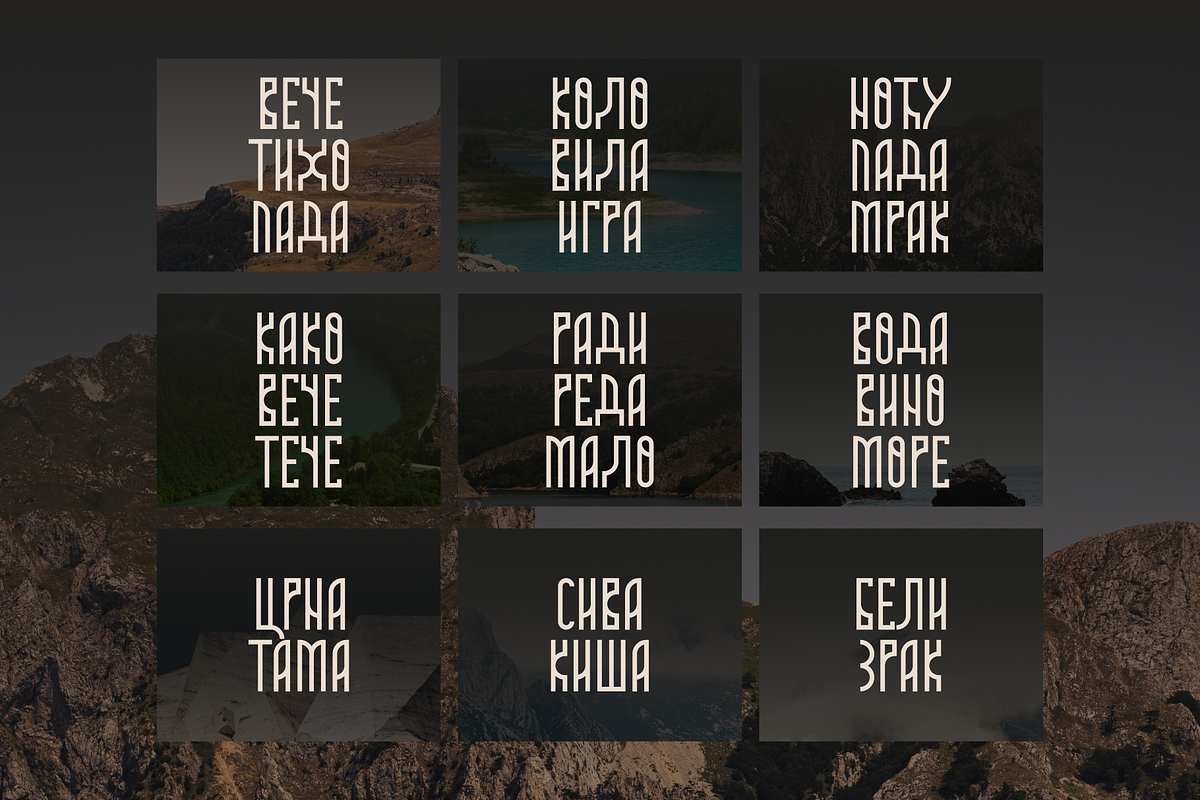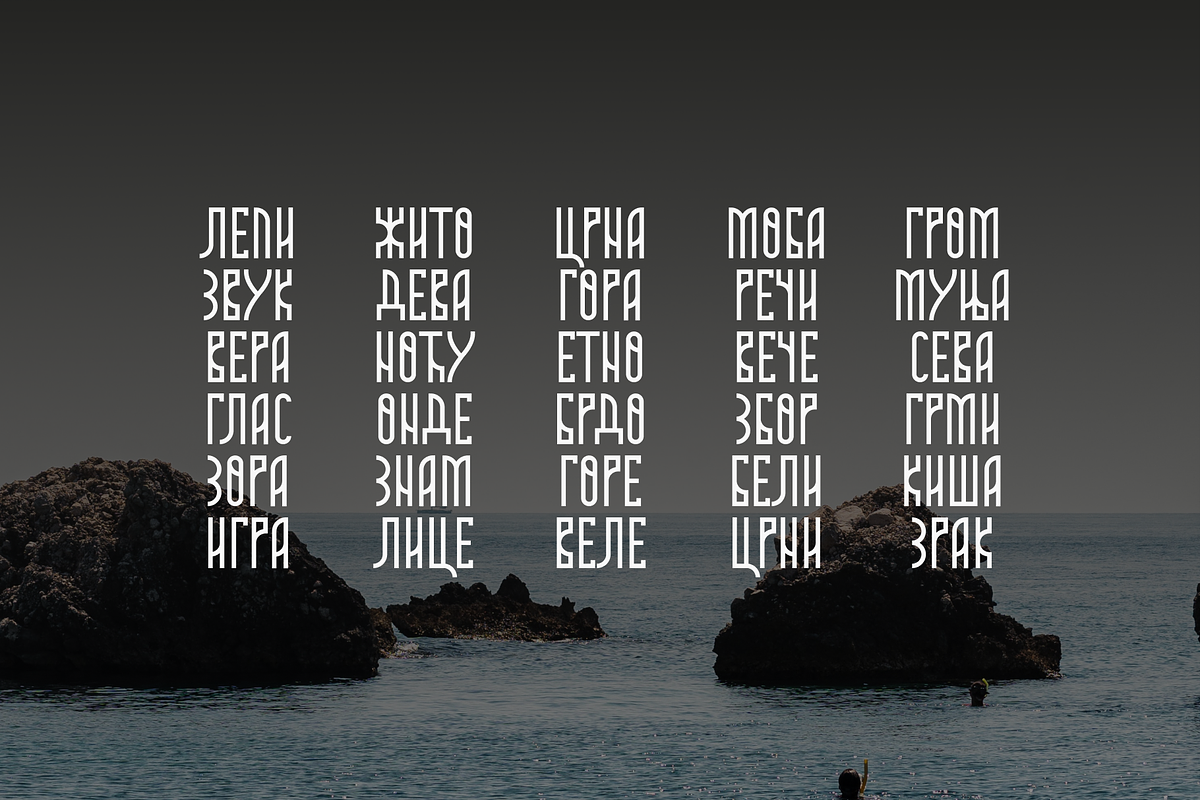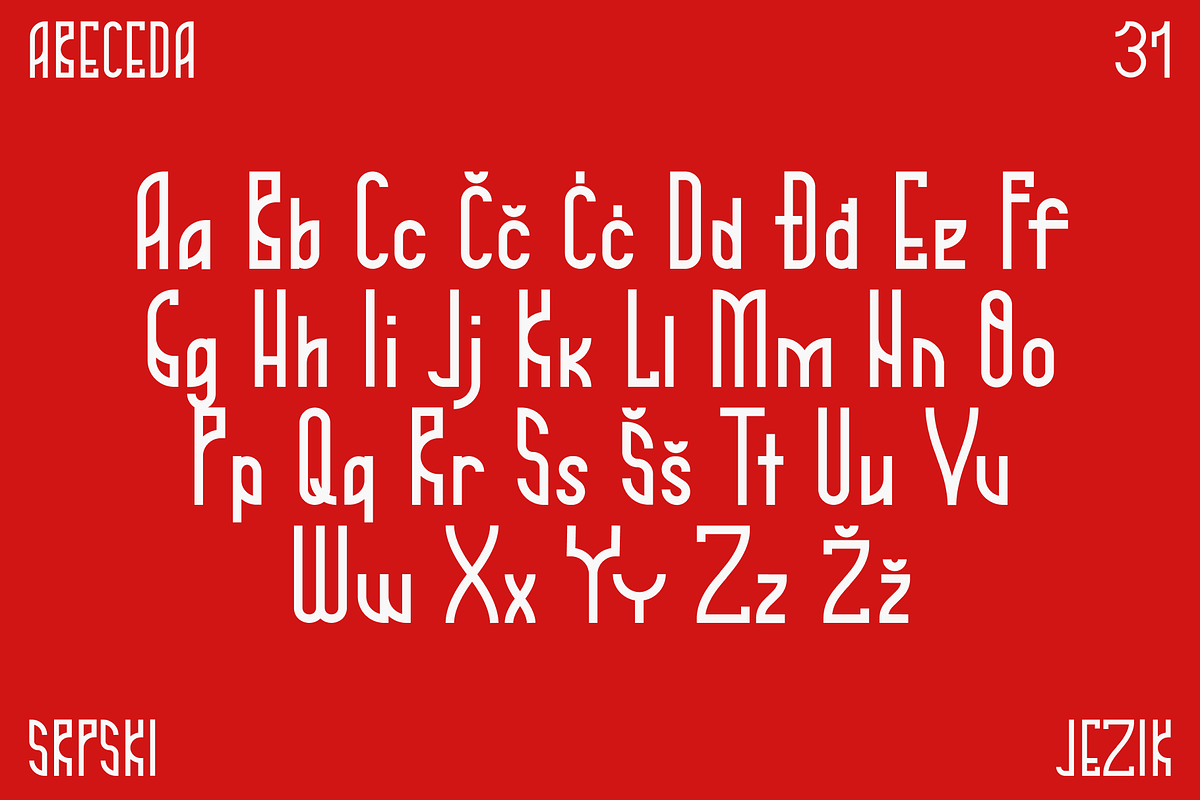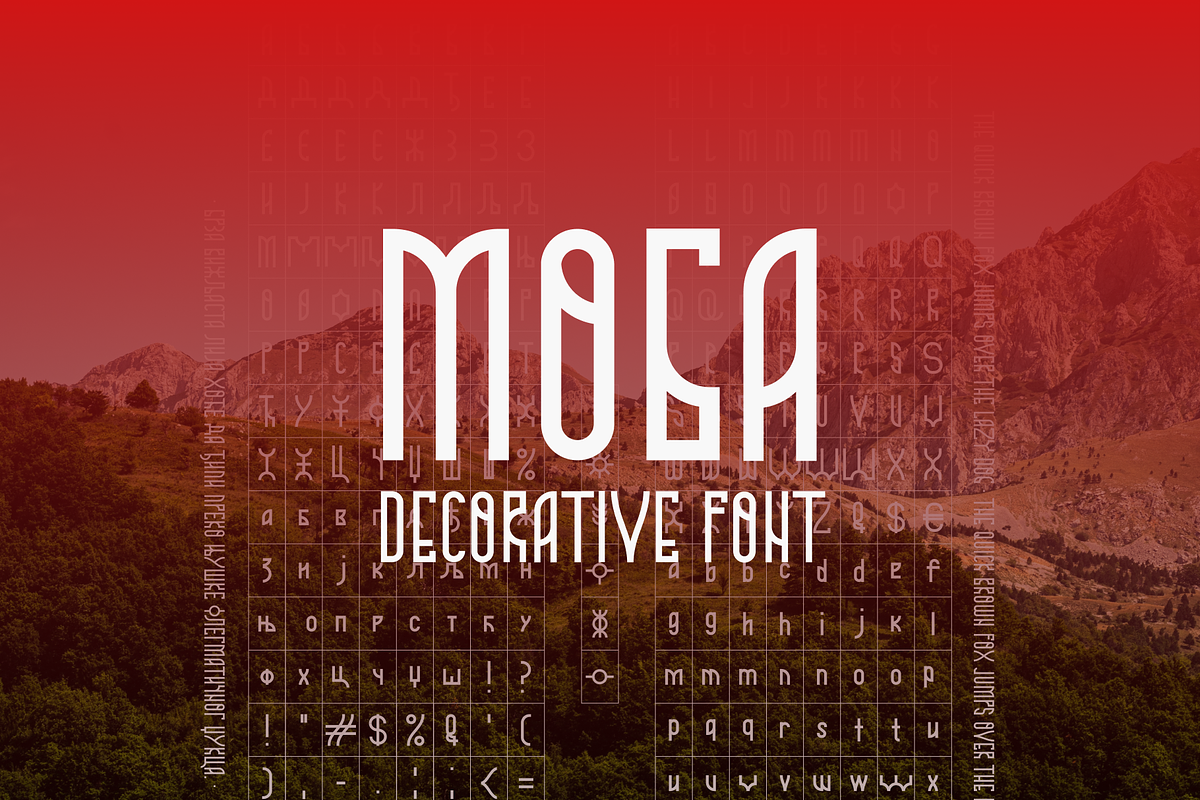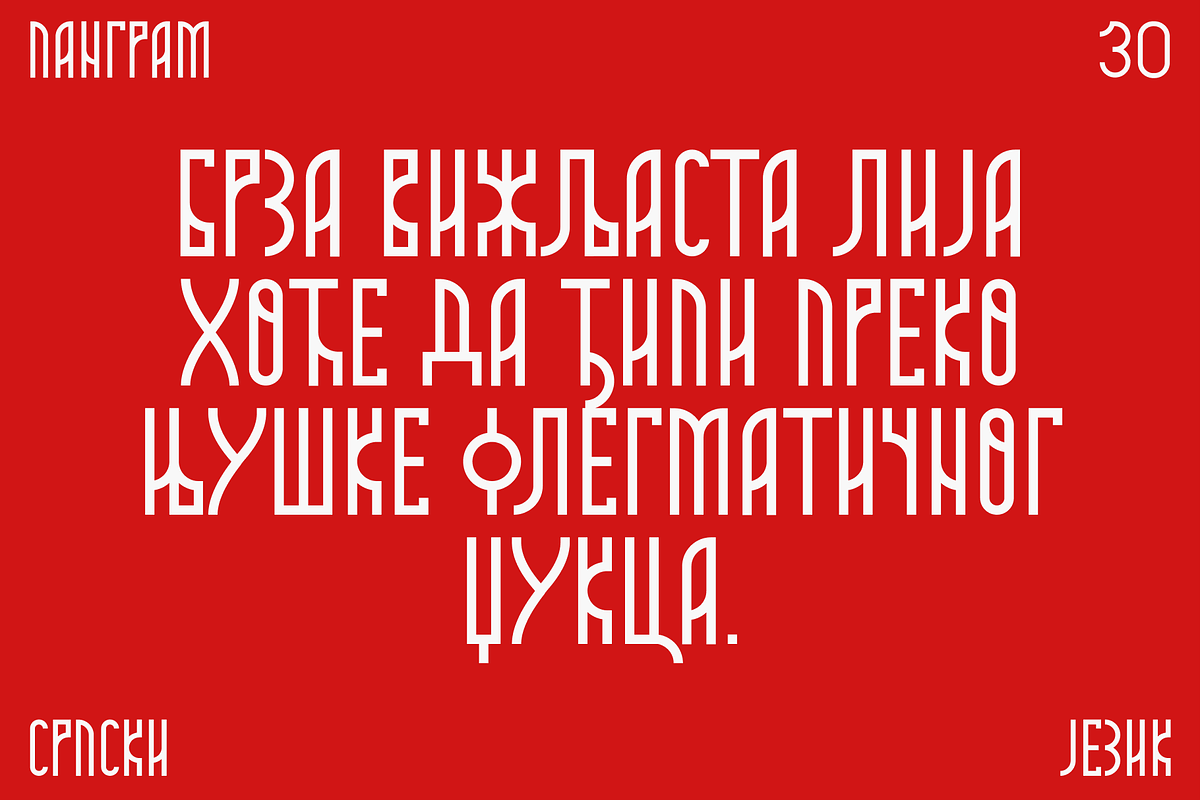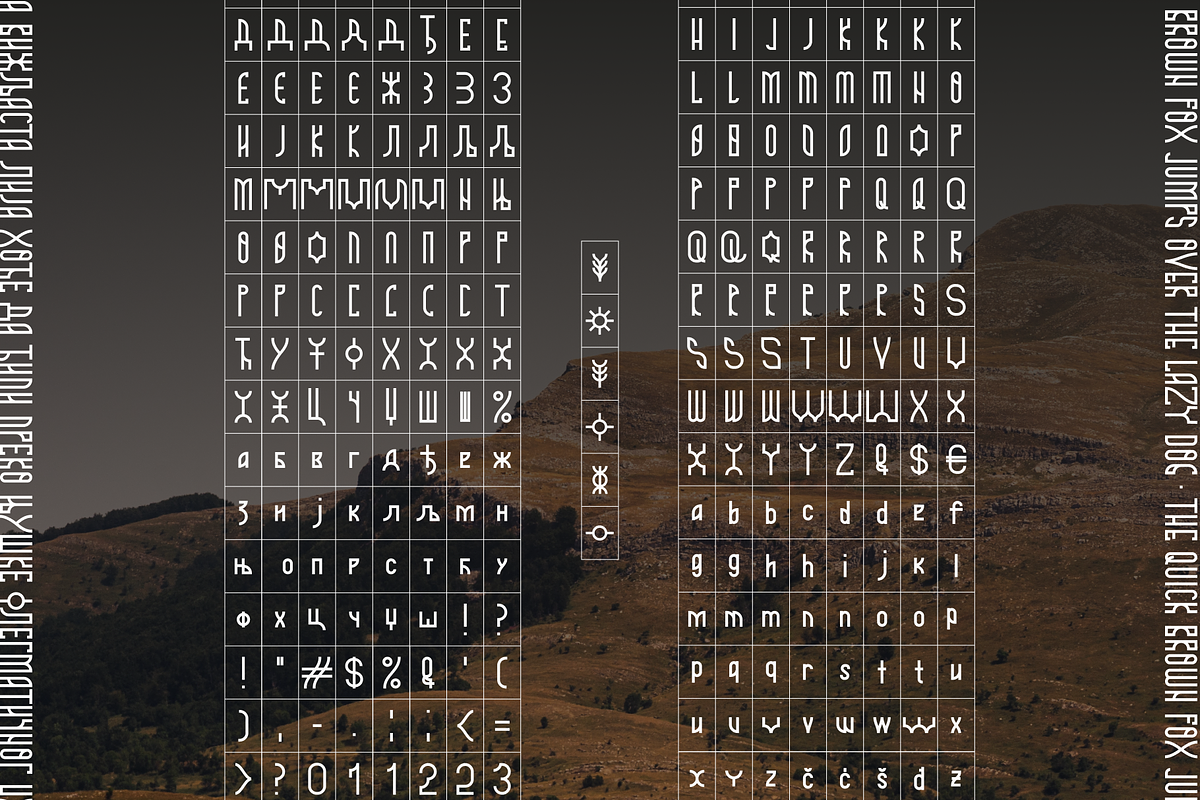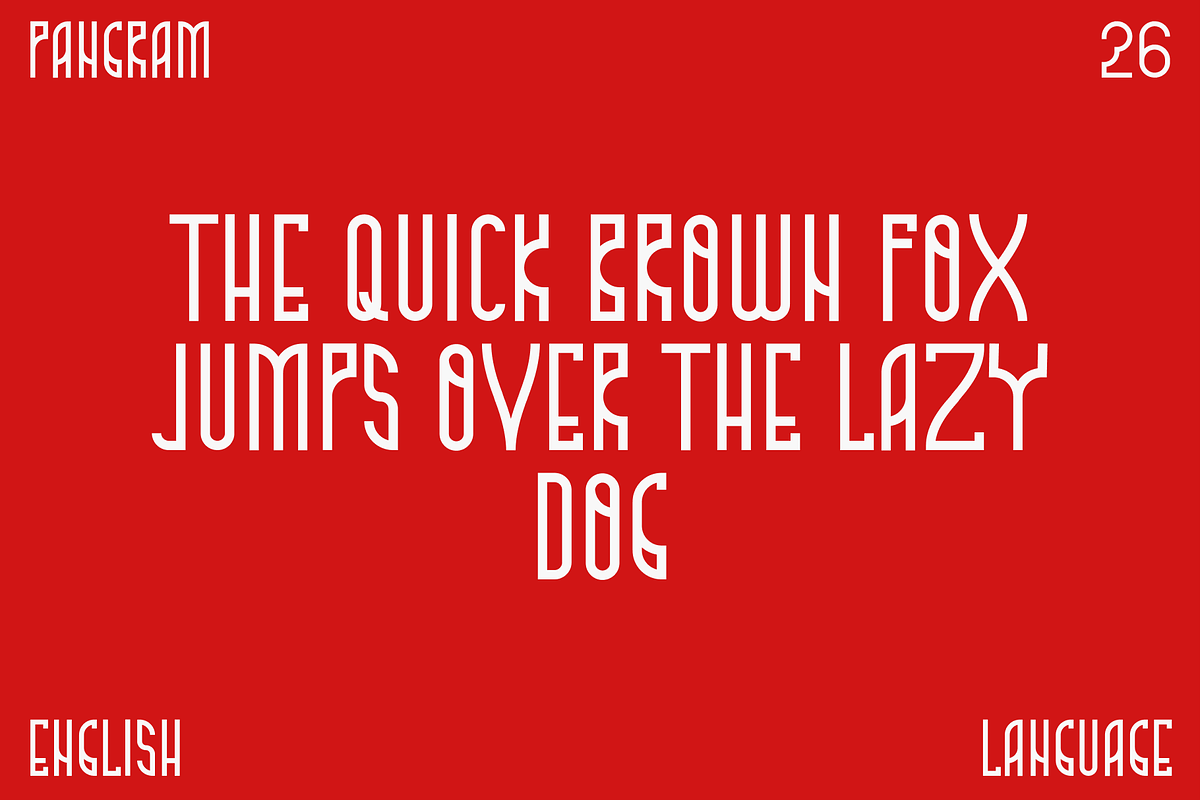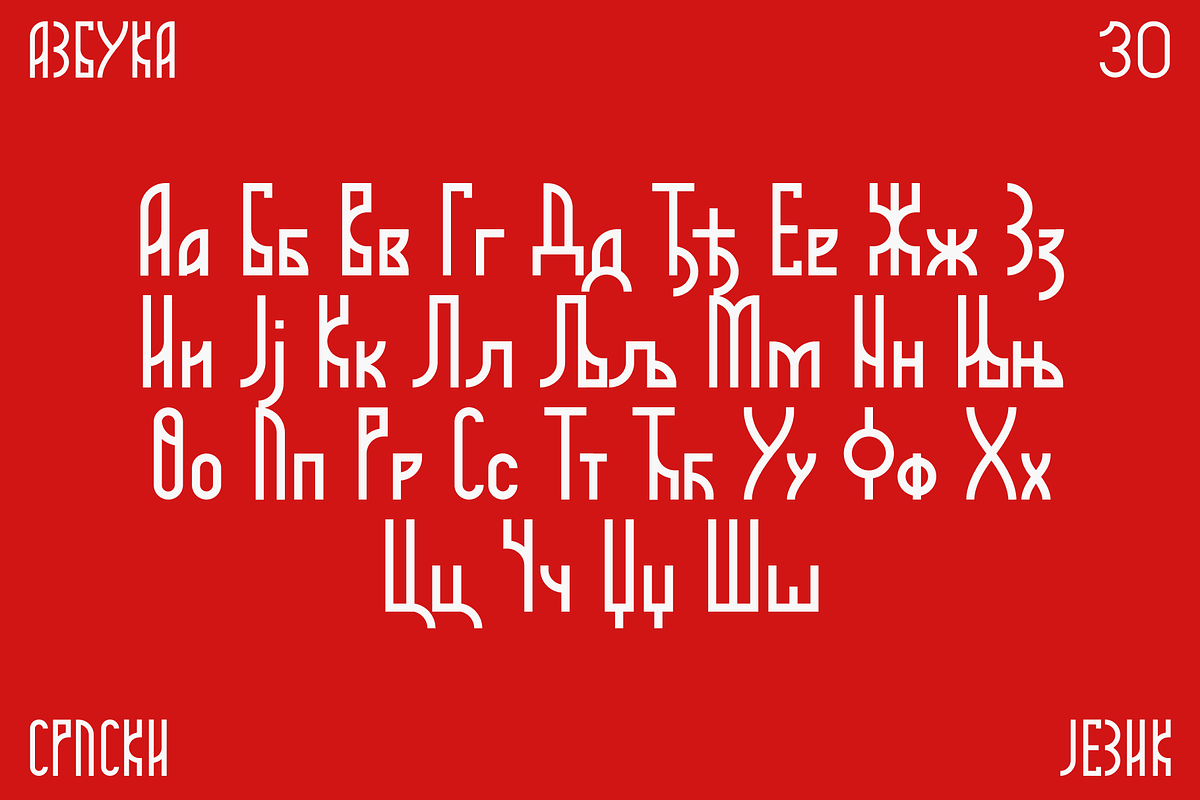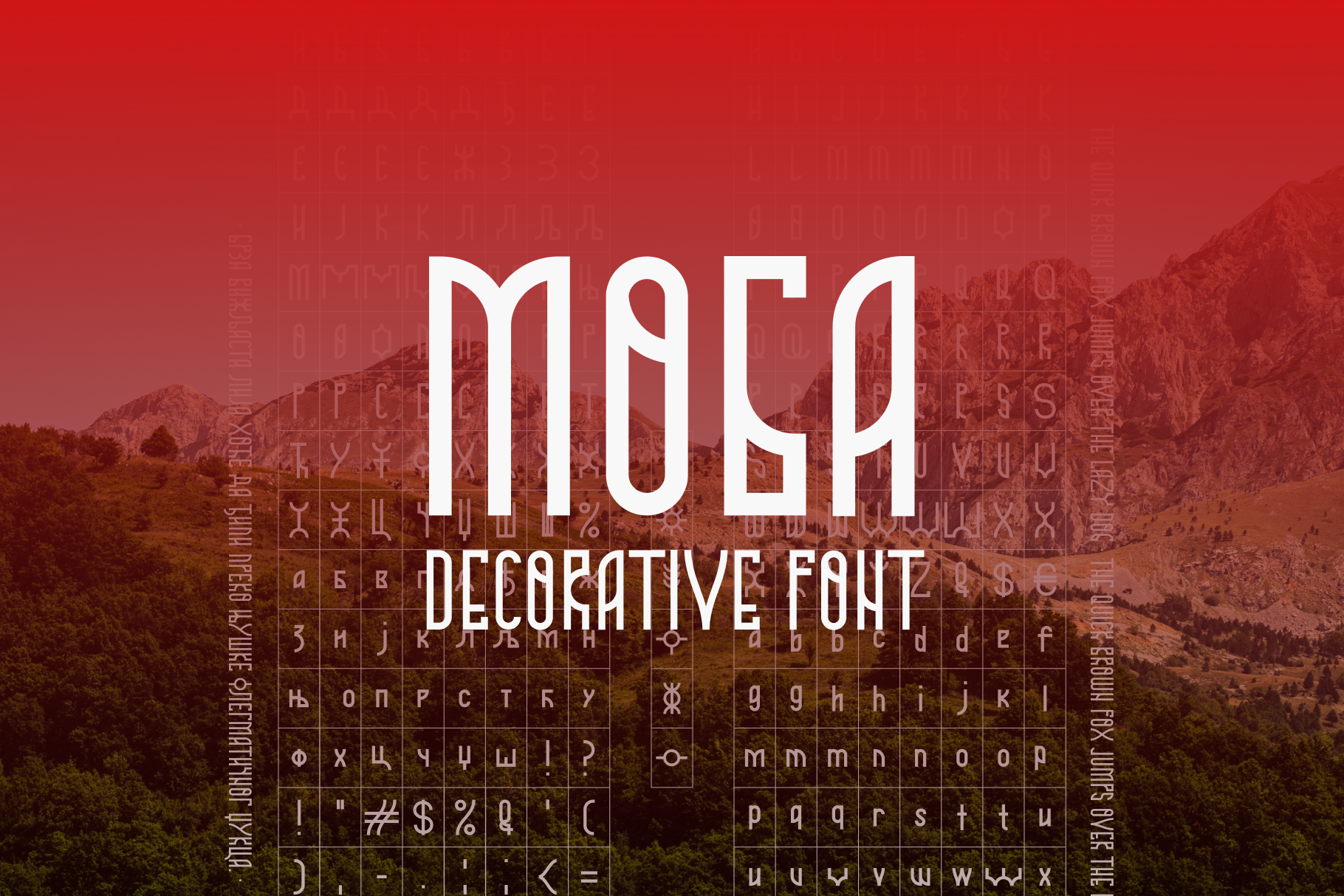
Moba - traditional slavic font
Moba is a traditional decorative type that is best used on title elements and various other instances where it is necessary to draw attention to a certain visual portion.
It was born through the study of traditional ligatures and signs, by the desire to make a new letterform and a functional font that is based on the study.
In total, 276 unique signs were created, that cover the usage of the type in Serbian cyrillic, latin, and English alphabet.